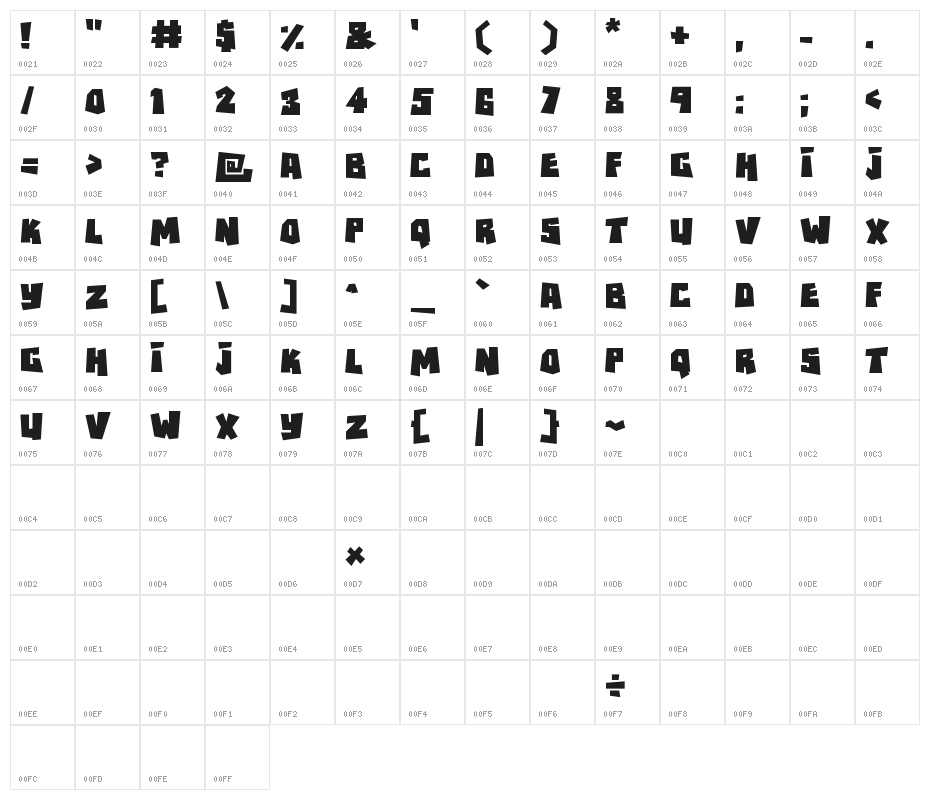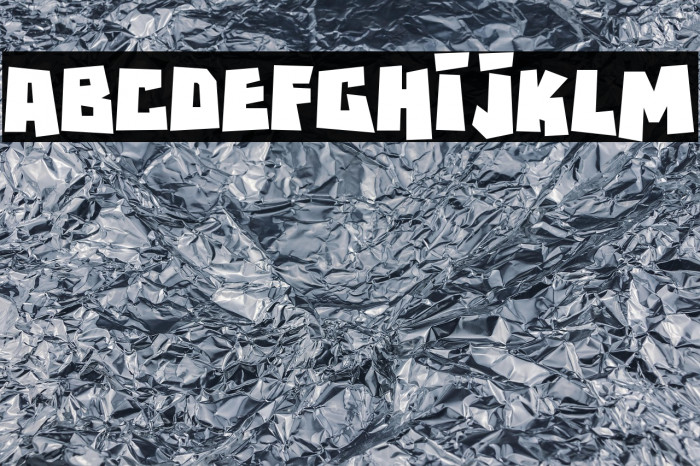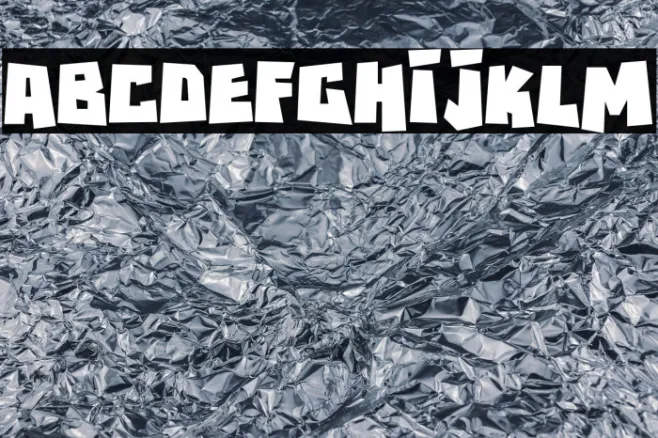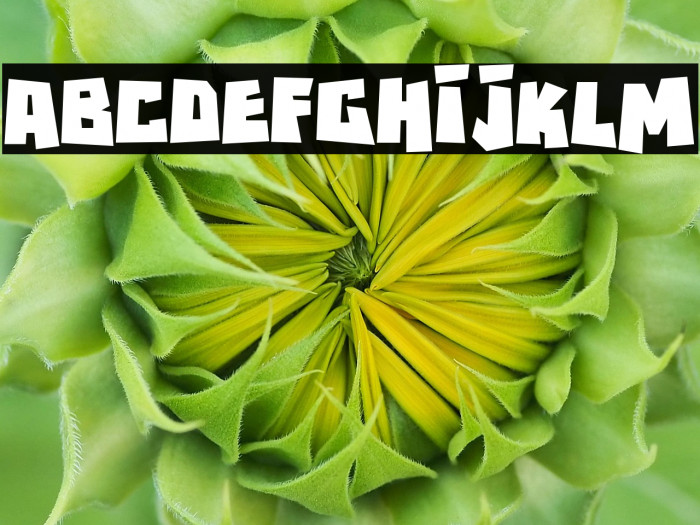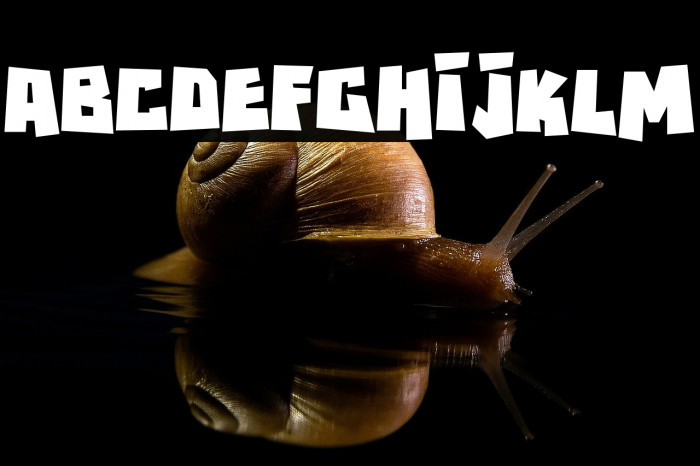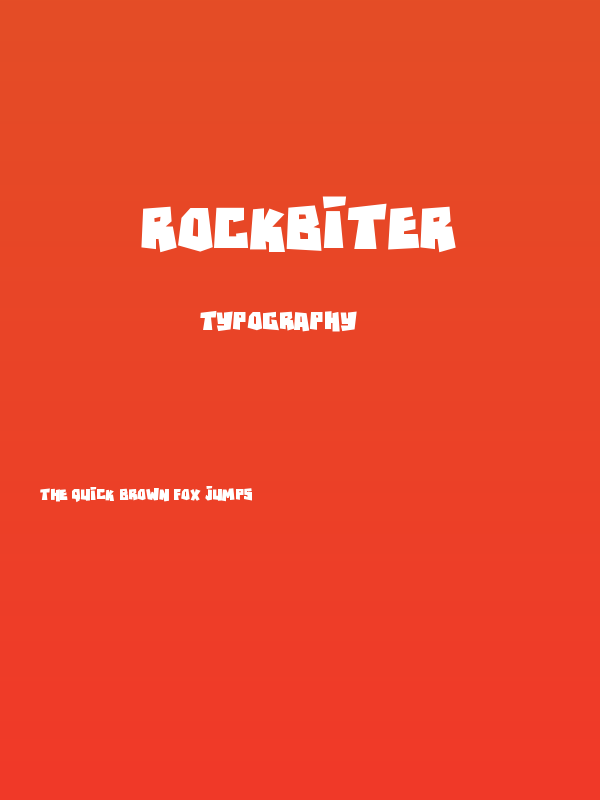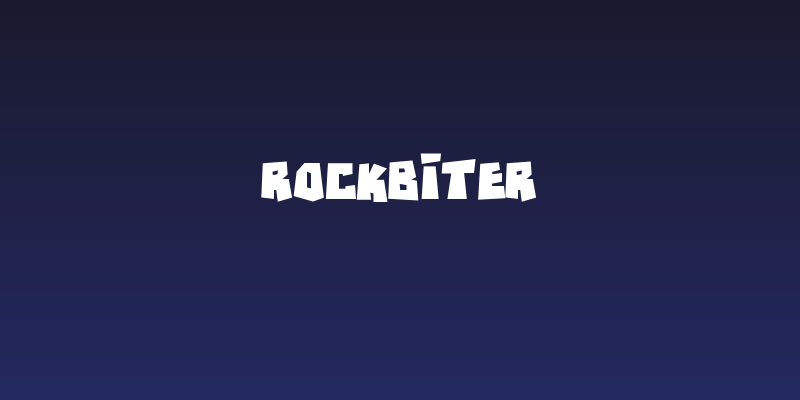
RockBiter Font
RockBiter Description
This font features a bold and dynamic style with a strong presence. The characters are blocky and angular, giving them a rugged and edgy appearance. Each letter is uniquely shaped with sharp angles and varying widths, creating a sense of movement and energy. The uppercase and lowercase letters maintain a consistent style, while the numbers and special characters complement the overall design. This font's distinctive look makes it ideal for projects that require a bold statement.
| Proposed Projects | Perfect for posters, video game titles, branding for extreme sports, and any design needing a bold, impactful look. |